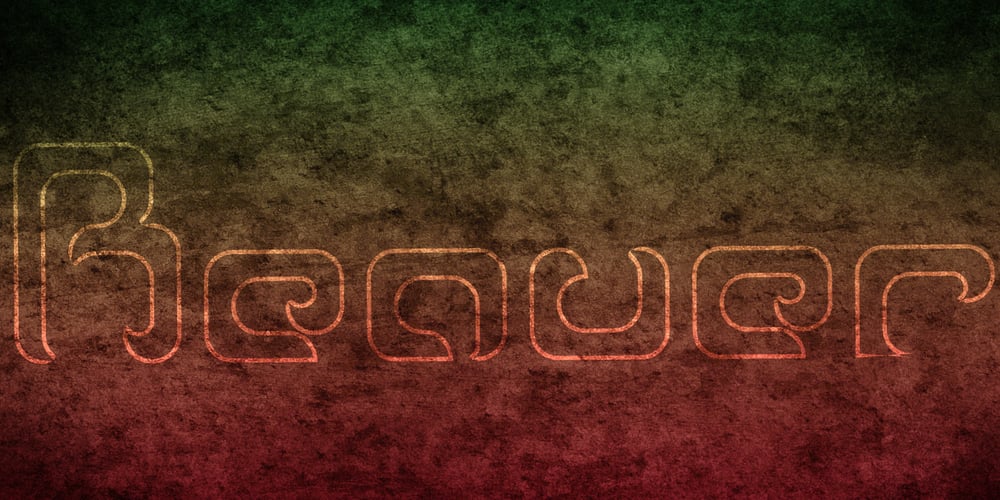
Reaver Font Family was designed by Rob Barba and published by Megami Studios. Reaver contains 7 styles and family package options. Reaver is my attempt to create a horror or bestial font that doesn’t conform to the traditional stereotypes of either. A few have called it Geigeresque, and an earlier name for this font – Chupacabra – also inspired.